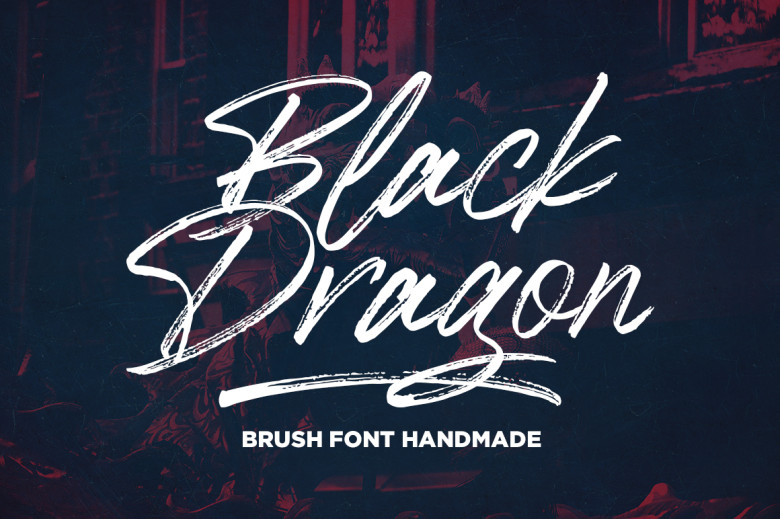
Black Dragon Font
Black Dragon is a beautiful and dramatic handwritten font. Each of the designs that you create will stand out thanks to its unique flow and bold style!
Black Dragon Brush Font